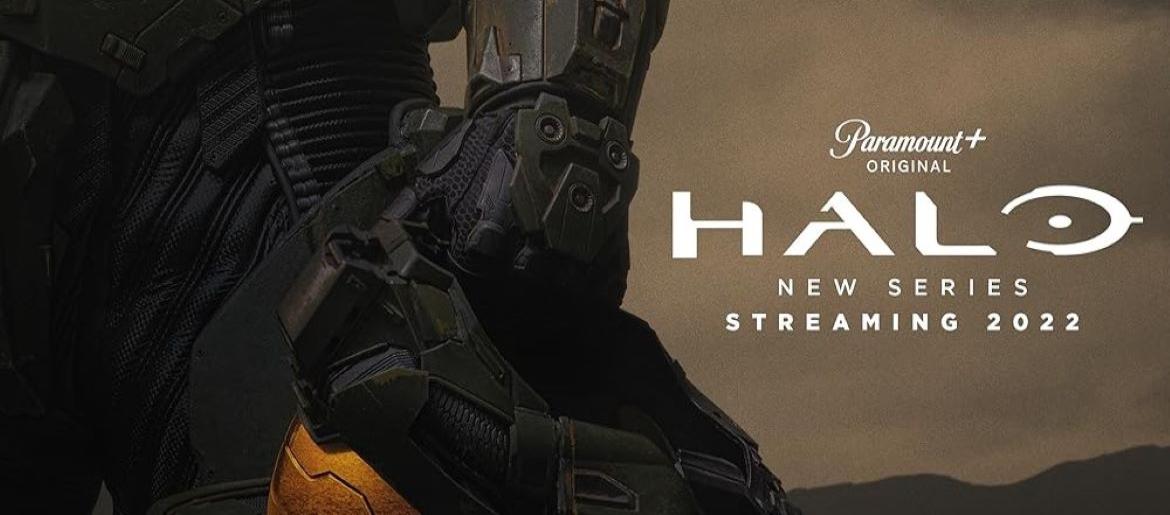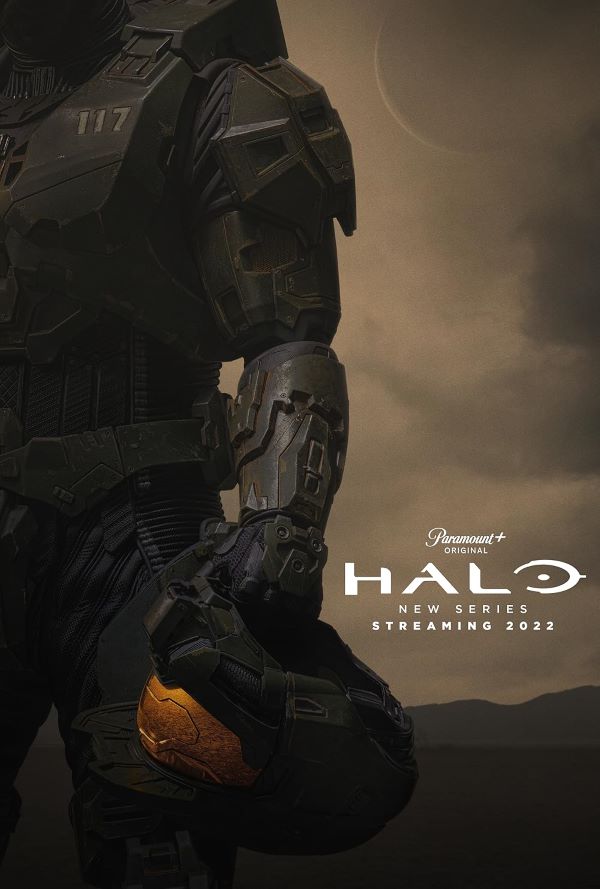
Halo Font
What Font Does Halo Use?
The Halo Font embodies the futuristic and militaristic tone of the Halo universe with sharp, commanding letterforms. This replica of the original Halo font, designed by Will Turnbow, perfectly captures the essence of the franchise’s sci-fi aesthetic. It’s a 100% free font ideal for gaming posters, tech branding, or any design that needs a bold, interstellar edge.
About Halo
Halo (2022) is a live-action science fiction TV series adapted from the legendary Xbox video game franchise. Set in the 26th century, it follows humanity’s struggle against the alien Covenant and explores deep philosophical questions about identity, loyalty, and destiny. The story centers on Master Chief Petty Officer John-117, portrayed by Pablo Schreiber, a super-soldier torn between duty and self-discovery. Combining high-stakes action with emotional storytelling, the series expands the Halo universe, offering fans a cinematic glimpse into its iconic lore and characters.